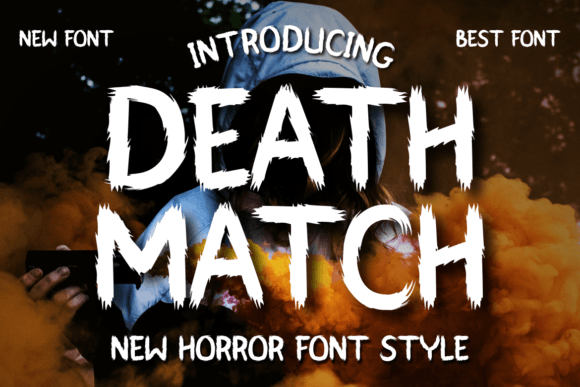
Welcome to the realm of Death Match Font, a visual feast that's guaranteed to make your designs stand out in the ring! Picture a spirited collision of beauty and boldness, a display font that will knock your socks off with its quirky charm. Whether you're designing flyers for a high-octane wrestling event or creating eye-catching social media graphics, this font is your knockout punch.
Unleash the raw energy of Death Match Font's unique curves and sharp angles. Its dynamic shapes and playful spirit will inject a jolt of adrenaline into your projects, leaving your audience breathless. Whether it's a poster for a rock concert or a website header that demands attention, this font is your undisputed champion.
Vandesignstd, the mastermind behind Death Match Font, has crafted a typographic masterpiece that will leave you in awe. This baby is not just a font; it's a statement. It's a declaration of individuality, a symbol of your refusal to blend in. So, break free from the ordinary and embrace the captivating aura of Death Match Font.